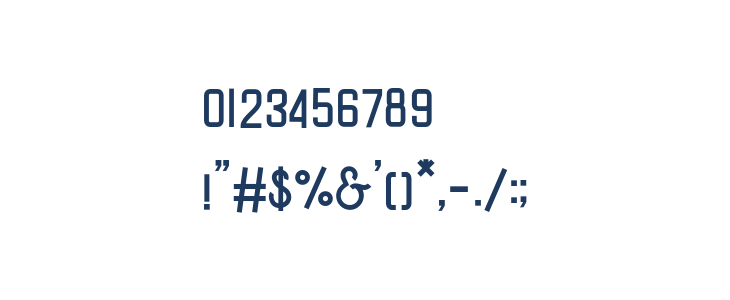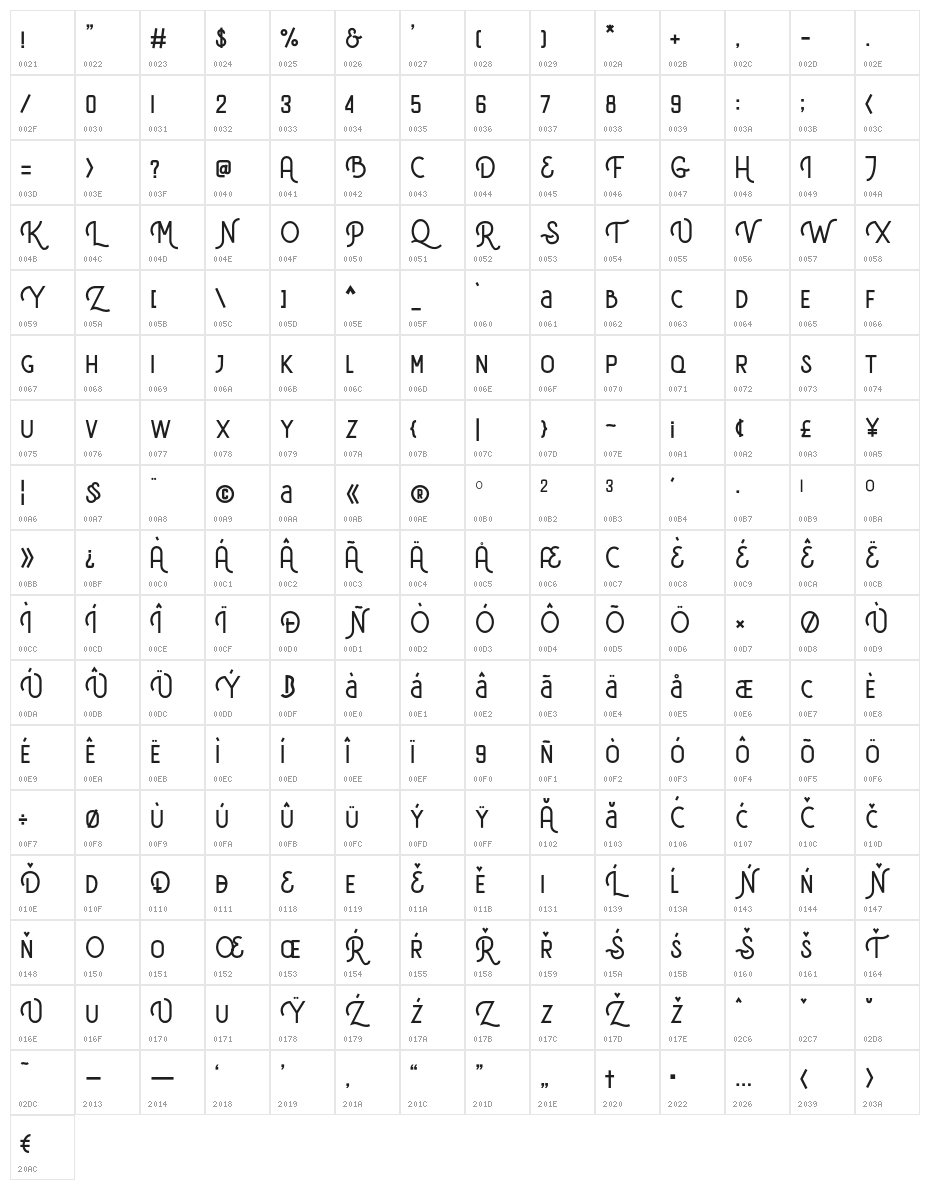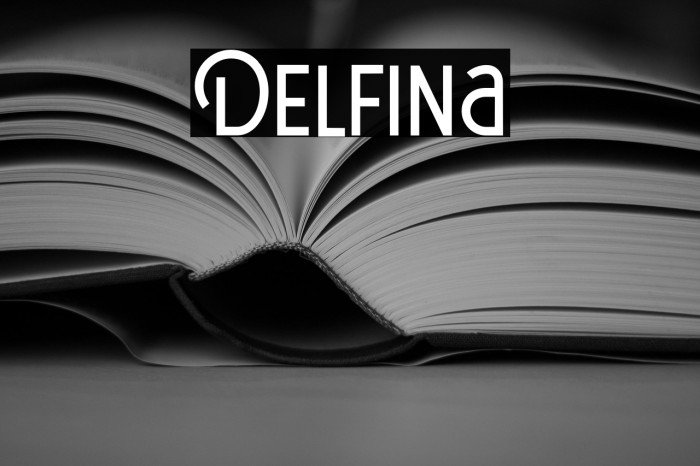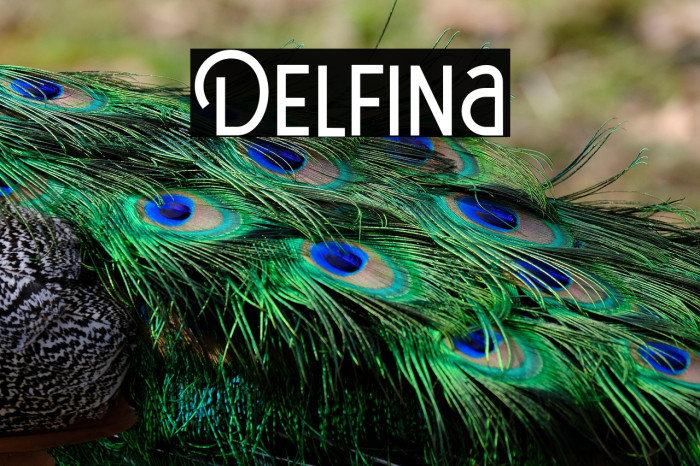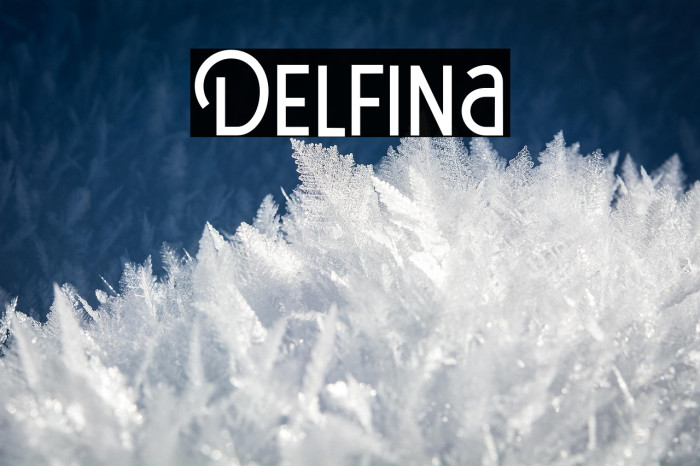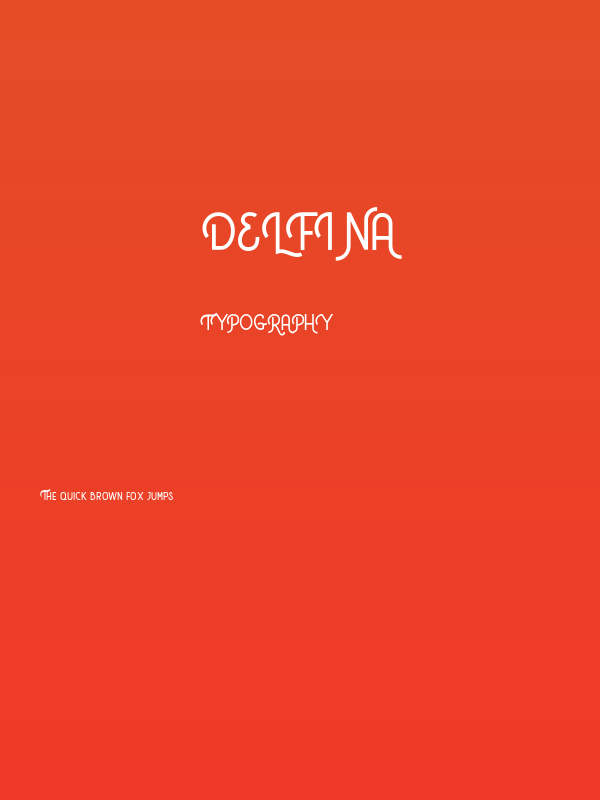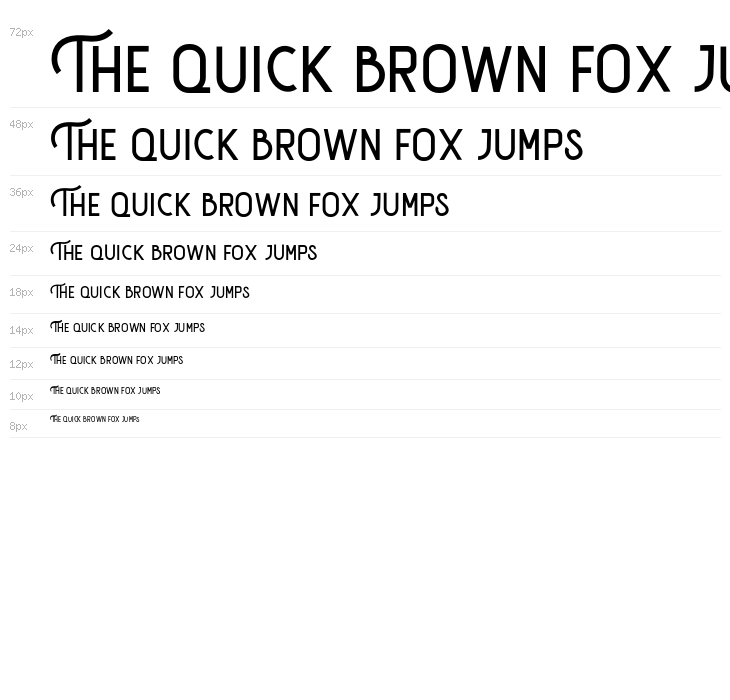
Delfina Font
Delfina Description
This font features a unique blend of decorative and modern elements, with its uppercase letters showcasing a playful, swirling design that adds a touch of elegance and whimsy. The lowercase letters are more straightforward, offering a clean and modern aesthetic that balances the ornate uppercase. The numerals are bold and clear, ensuring readability. Special characters maintain the decorative style, making them suitable for creative projects. The font's versatility makes it ideal for both artistic and professional applications, providing a distinctive look that stands out.